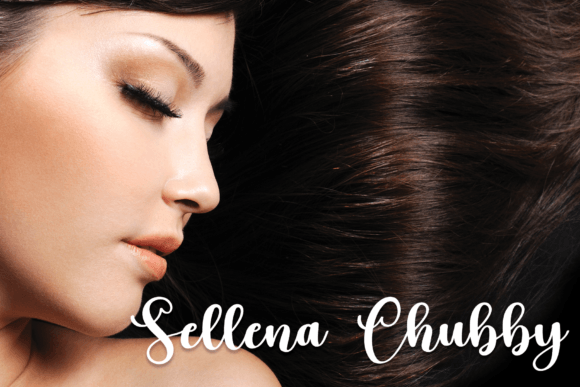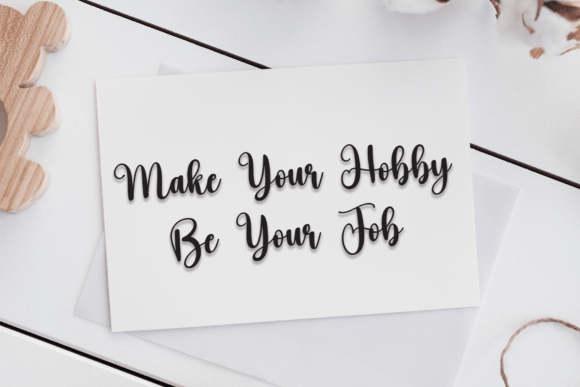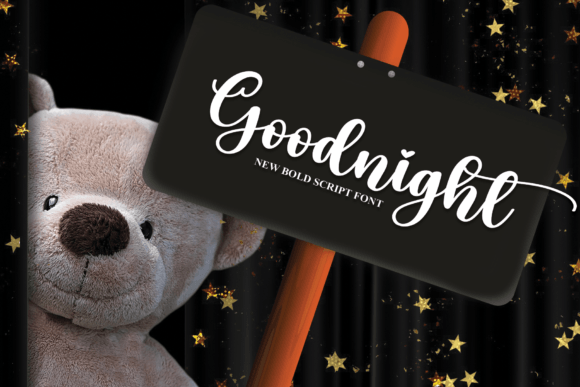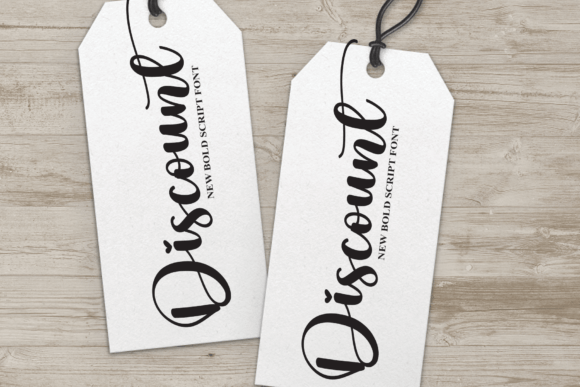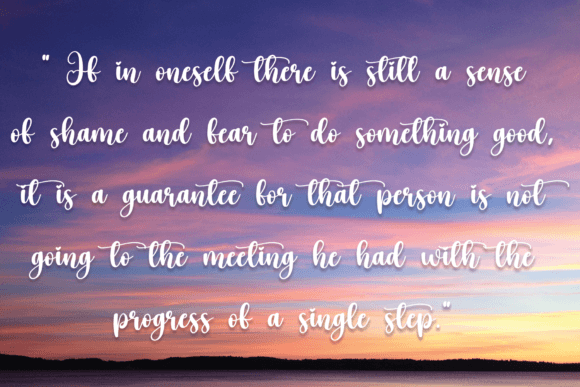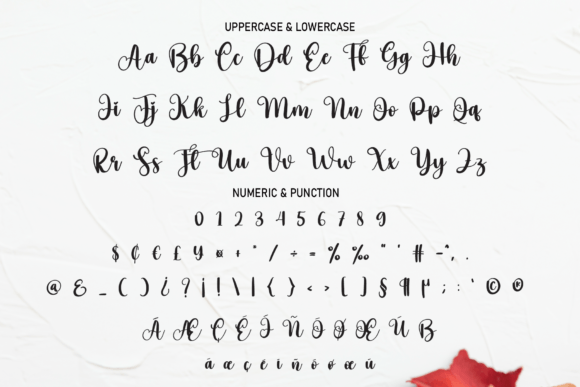
Introducing Fall Font: The Perfect Handwritten Style for Your Designs
As the seasons change and fall arrives, it’s the perfect time to incorporate a fresh and stylish font into your designs. Fall Font is the latest addition to the world of typography, and it’s perfect for adding a handwritten touch to your projects. Whether you’re a designer, crafter, or DIY enthusiast, Fall Font is a must-have for creating beautiful and eye-catching designs.
What is Fall Font?
Fall Font is a stylish and elegant handwritten font that’s perfect for a variety of design projects. Its unique and flowing script is reminiscent of traditional handwriting, making it ideal for adding a personal touch to your designs. The font is highly versatile and can be used for a range of applications, from wall displays and wedding invitations to social media posts and product packaging.
Key Features of Fall Font
- Handwritten style: Fall Font features a beautiful, handwritten script that’s perfect for adding a personal touch to your designs.
- Highly versatile: The font can be used for a range of applications, from digital designs to print materials.
- Elegant and stylish: Fall Font’s unique and flowing script makes it perfect for creating elegant and stylish designs.
- Easily readable: The font is highly legible, making it perfect for use in body text and headings.
Fall Font is a must-have for designers and crafters who want to add a personal touch to their projects. The font is perfect for:
- Wall displays: Create beautiful wall displays with Fall Font, perfect for adding a personal touch to your home or office.
- Wedding invitations: Make your wedding invitations truly special with Fall Font’s elegant and stylish script.
- Social media posts: Add a touch of elegance to your social media posts with Fall Font, perfect for creating eye-catching graphics and logos.
- Product packaging: Use Fall Font to create beautiful and eye-catching product packaging that stands out from the crowd.
- Product designs: Incorporate Fall Font into your product designs, perfect for creating stylish and elegant labels, photography, and watermarks.
Tips for Using Fall Font
Here are some tips for getting the most out of Fall Font:
- Experiment with different sizes: Fall Font looks great in a range of sizes, from small and delicate to large and bold.
- Pair with other fonts: Try pairing Fall Font with other fonts to create a unique and eye-catching combination.
- Use for headings and body text: Fall Font is highly legible, making it perfect for use in both headings and body text.
- Add a personal touch: Use Fall Font to add a personal touch to your designs, perfect for creating unique and special projects.
Fall Font is the perfect addition to any design project, offering a stylish and elegant handwritten script that’s perfect for a range of applications. Whether you’re a designer, crafter, or DIY enthusiast, Fall Font is a must-have for creating beautiful and eye-catching designs. So why wait? Download Fall Font today and start adding a personal touch to your projects.